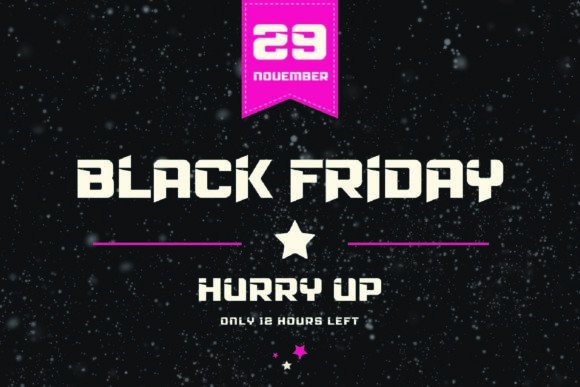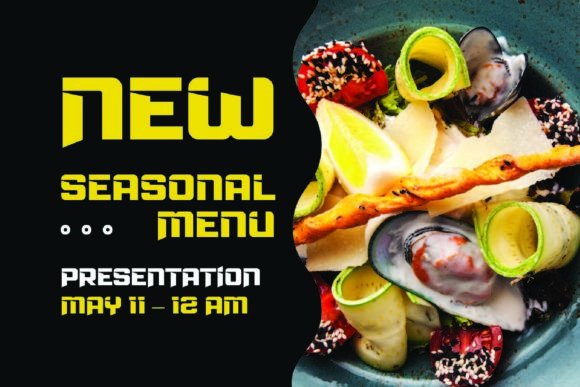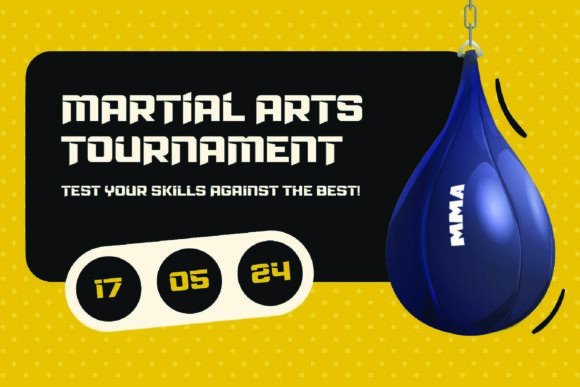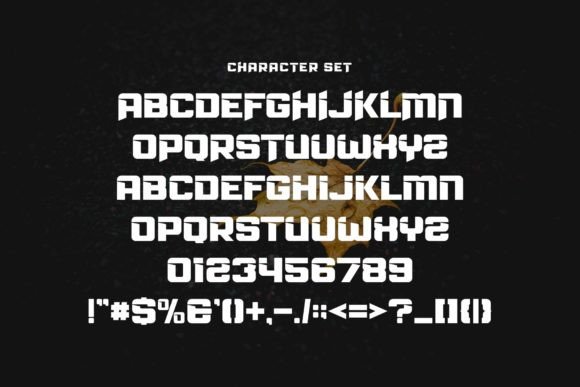
Introduction to Raino Font
Have you ever stared at a blank canvas, wondering how to bring your creative vision to life? For designers, this moment can be both exhilarating and intimidating. But what if you had the perfect tool to elevate your project and make it truly stand out? Enter Raino Font, a bold and assertive sans serif font that’s about to become your new best friend.
Whether you’re working on a high-end design project or a simple graphic, Raino Font is the perfect design resource to take your creation to the next level. Its versatility and high quality make it an ideal choice for any creative project, from logos and business cards to social media graphics and presentations.
Key Features of Raino Font
- High-Quality Design: Raino Font is a premium design resource that offers crisp, clear, and well-crafted characters.
- Transparent Background: This font features a transparent background, making it easy to use with any creative project that requires a seamless integration.
- High Resolution: Raino Font is designed at a high resolution of 300 DPI, making it perfect for use in print materials, such as business cards, brochures, and posters.
- Easy Customization: The font’s clean and simple design makes it easy to customize and manipulate, allowing designers to create unique and personalized designs.
Honest Review: Raino Font
As a designer, I’m always on the lookout for high-quality design resources to enhance my creative projects. Recently, I came across the Raino Font, and I must say, it’s been a game-changer. This font is perfect for anyone looking to add a modern touch to their designs.
Here are some of the things that work well with the Raino Font:
- ✨ Clean and minimalist design that makes it perfect for digital displays.
- ✨ High quality and crisp lines that ensure readability.
- ✨ Transparent background, allowing for easy use with any design element.
- ⚠️ Limited font styles, which might not be ideal for designers who require a wide range of options.
- ⚠️ May not be suitable for printing due to its digital design.
Overall, the Raino Font is a solid addition to any designer’s toolkit. Its clean design and high quality make it perfect for digital displays, and the free download is a definite bonus. While it may have some limitations, it’s definitely worth checking out for your next creative project.
Tips for Getting the Most Out of Raino Font
For a high-quality design, use Raino Font in conjunction with other design resources, such as images and graphics. Experiment with different font sizes and styles to create visual interest. You can also use Raino Font with a transparent background to add a touch of elegance to your design.
Common Use Cases for Raino Font
Raino Font is ideal for creative projects that require a modern and sophisticated look. It’s perfect for use in brochures, flyers, business cards, and other marketing materials. You can also use Raino Font in free download templates, such as resume templates and social media graphics.
Is the Raino Font suitable for use on digital platforms, such as websites and mobile apps?
Yes, the Raino Font is optimized for use on digital platforms, including websites and mobile apps. Its transparent background and high-quality design ensure that it will display smoothly and consistently across various devices and screen sizes.